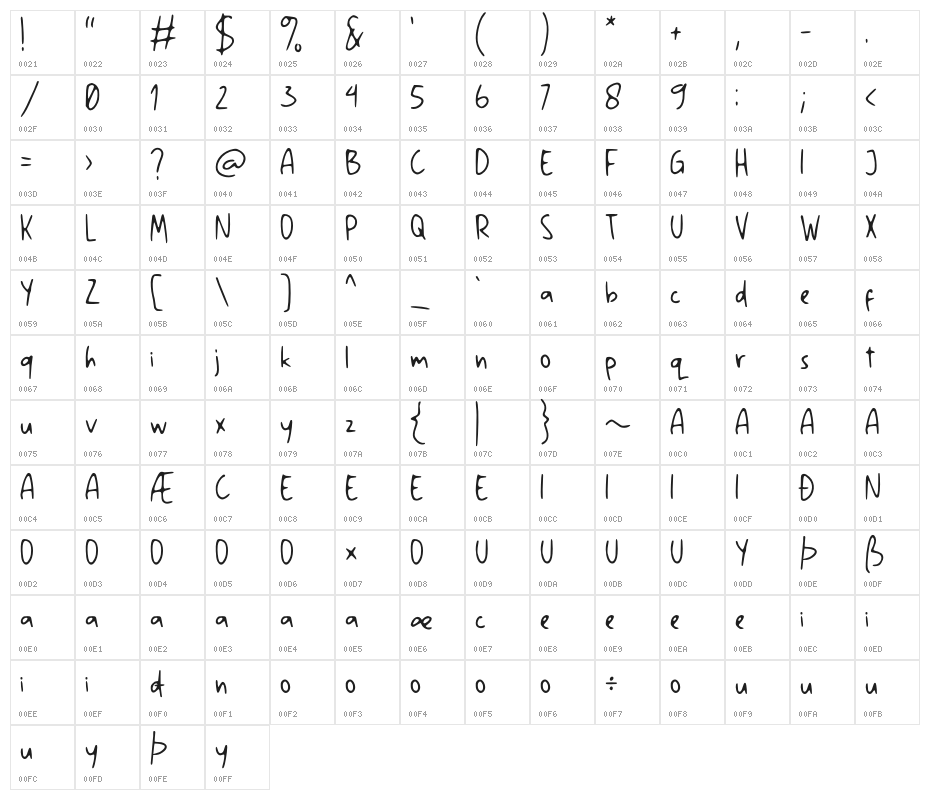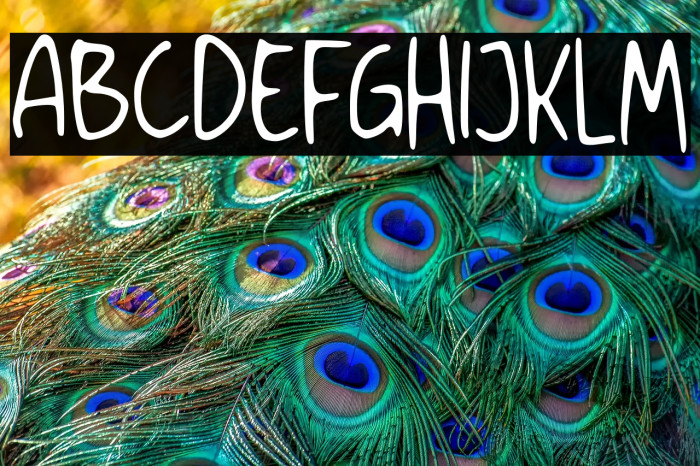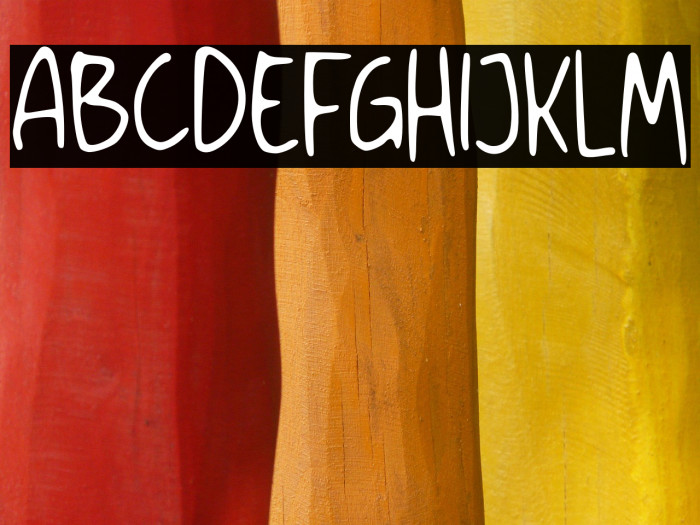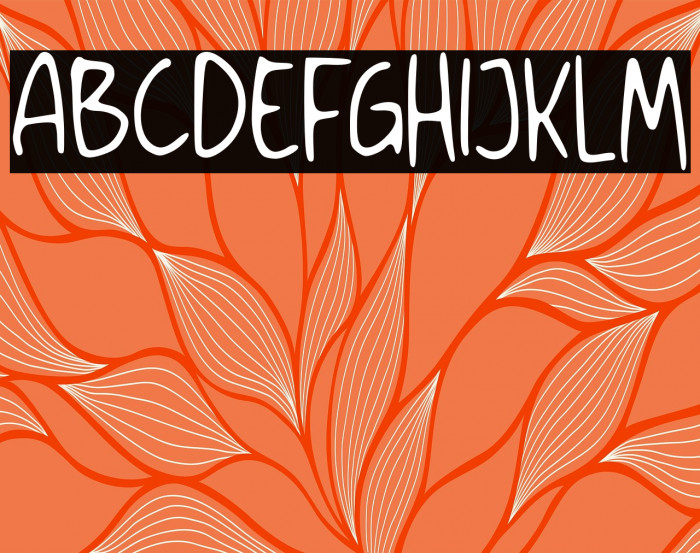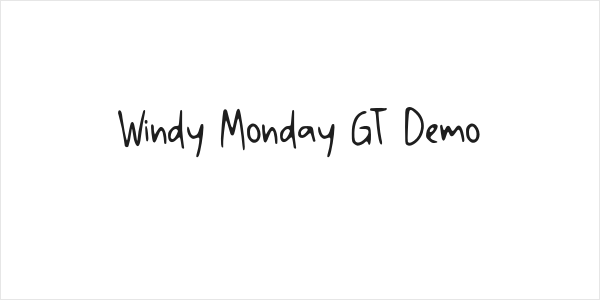
Windy Monday GT Demo Font
Windy Monday GT Demo Description
This font features a playful and casual handwritten style, characterized by its uneven strokes and organic flow. The letters are slightly tilted, adding a dynamic and informal feel. The uppercase and lowercase letters maintain a consistent style, with rounded edges and varying line thickness that give it a lively appearance. The numerals and special characters follow the same playful design, making it suitable for projects that require a personal touch. Its informal nature makes it ideal for creative and artistic applications.
Overall StyleCasual
Use CaseHeadlines, Creative projects, Informal communication
Proposed ProjectsIdeal for greeting cards, children's books, personal blogs, and creative branding.